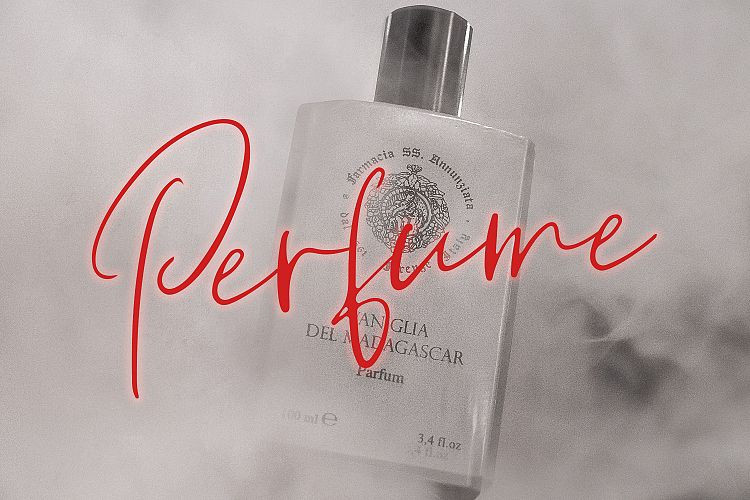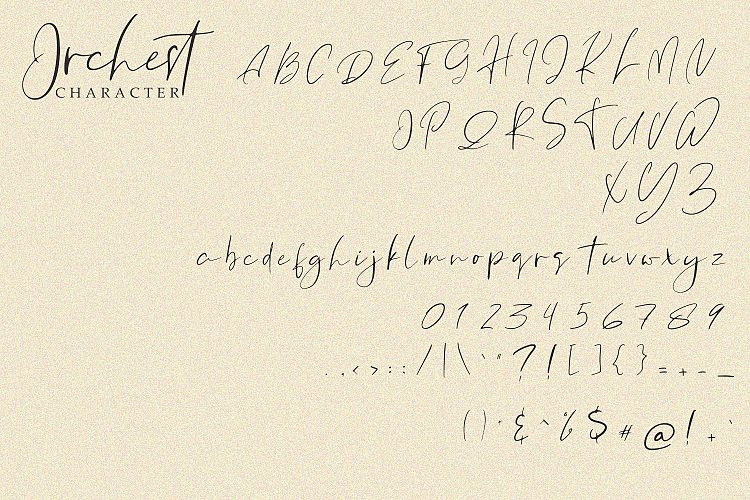
Orchest Script Font
Orchest Script – Demo Font
Start a new day with a luxury caliigrphy font. It’s modern calligraphy script font, every single letters has been carefully crafted to make your text looks beautiful. Introducing Orchest Font. It is designed and shared by Arendxstudio. Orchest Script is a Luxury Caliigrphy that is luxurious in a casual and distinctive style that is perfect for your branding design, and will also be very beautiful in your wedding invitations and business cards and especially for your brand name logotype